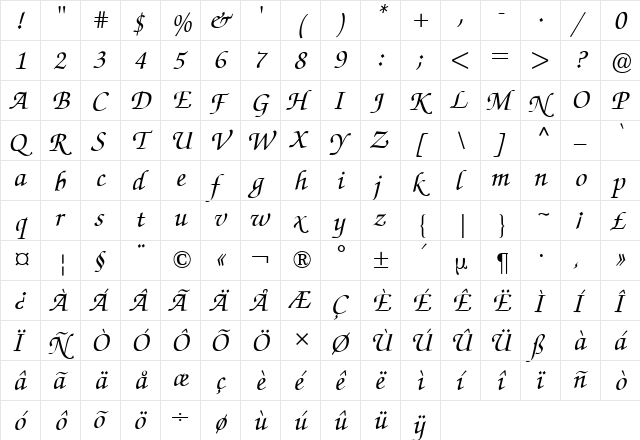
ZapfChanceryBQ-MediumItalic Medium Italic Font Preview
ZapfChanceryBQ-MediumItalic Medium Italic
Design Context for ZapfChanceryBQ-MediumItalic Typeface
ZapfChanceryBQ-MediumItalic takes a measured approach to typography — its balanced proportions and neutral character make it a reliable workhorse for both digital and print work. The dynamic lean of this cut emphasises speed and emphasis in any layout.
Pro Tip: Use ZapfChanceryBQ-MediumItalic for emphasis, pull quotes, and subheadings where its slanted energy can add rhythm to the layout.